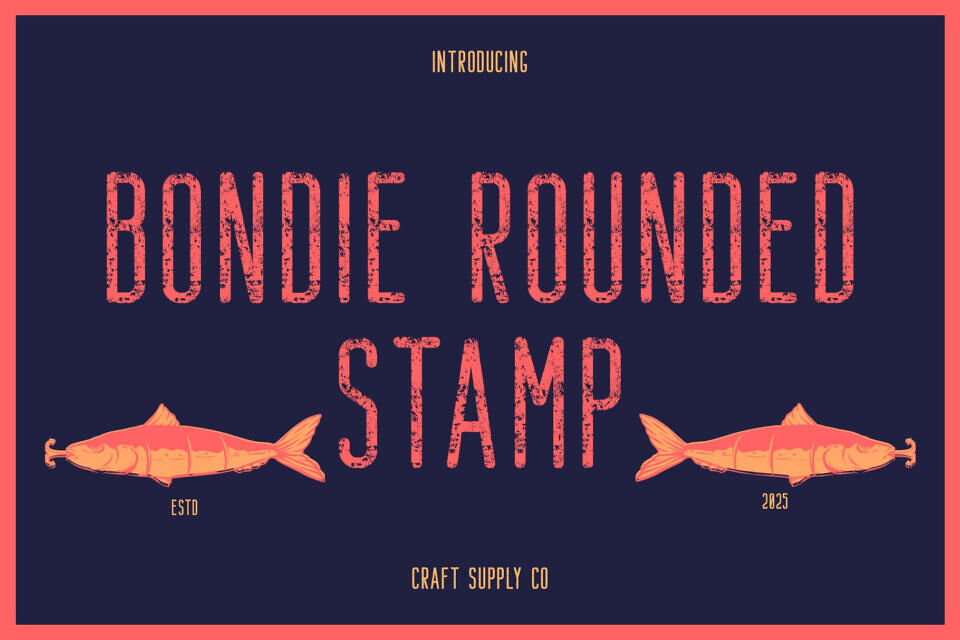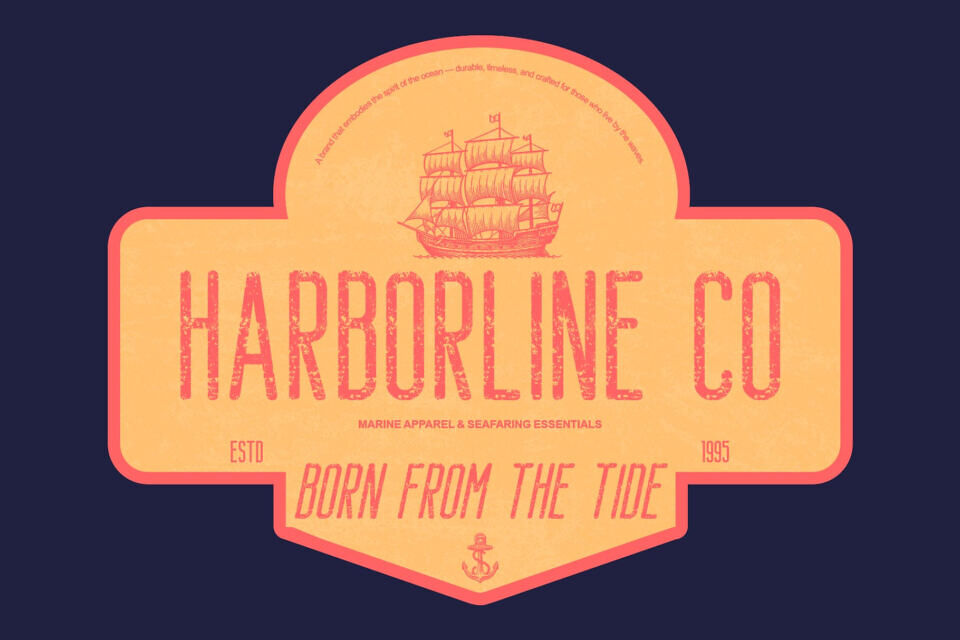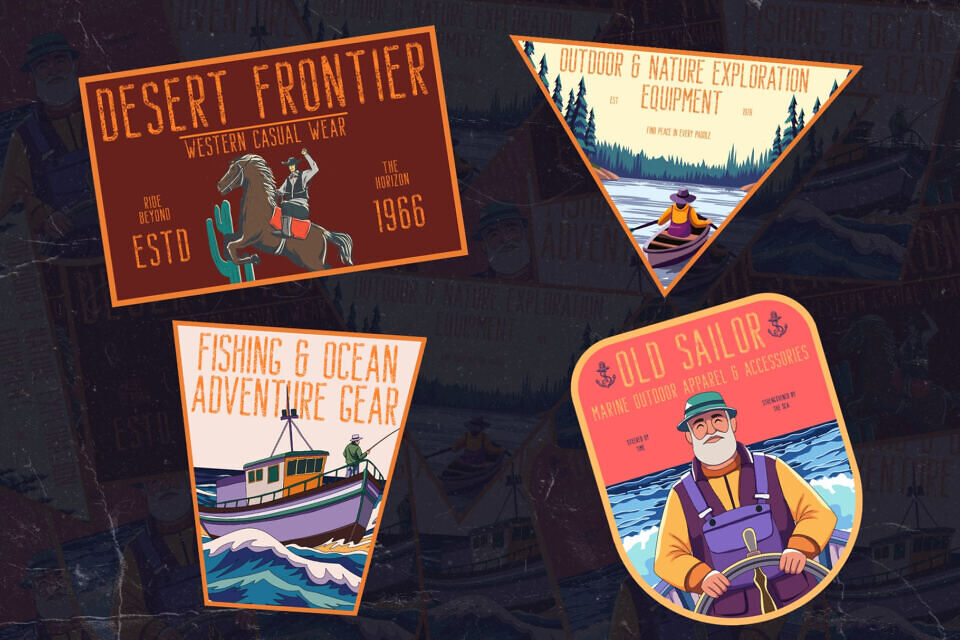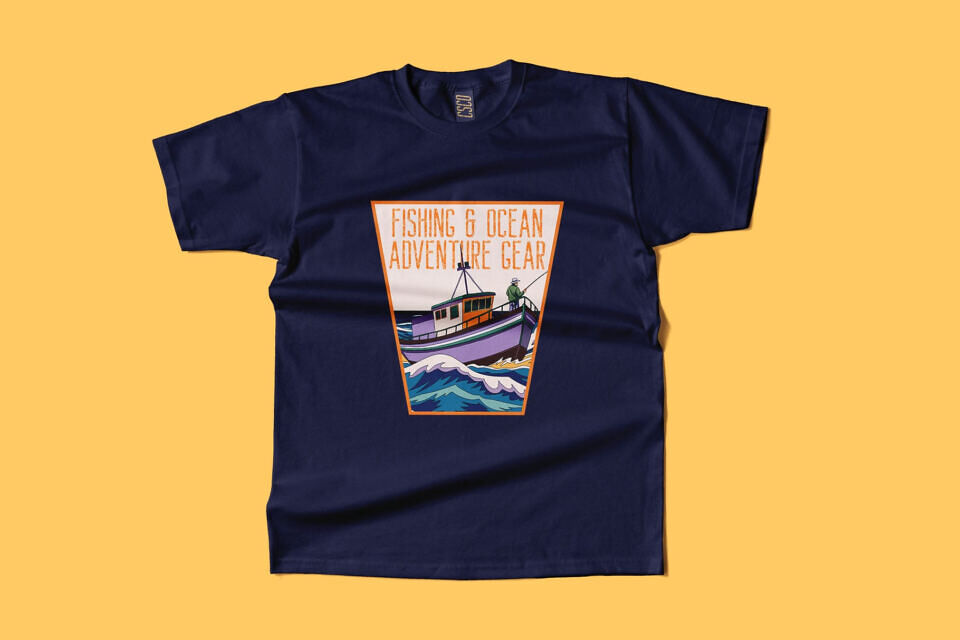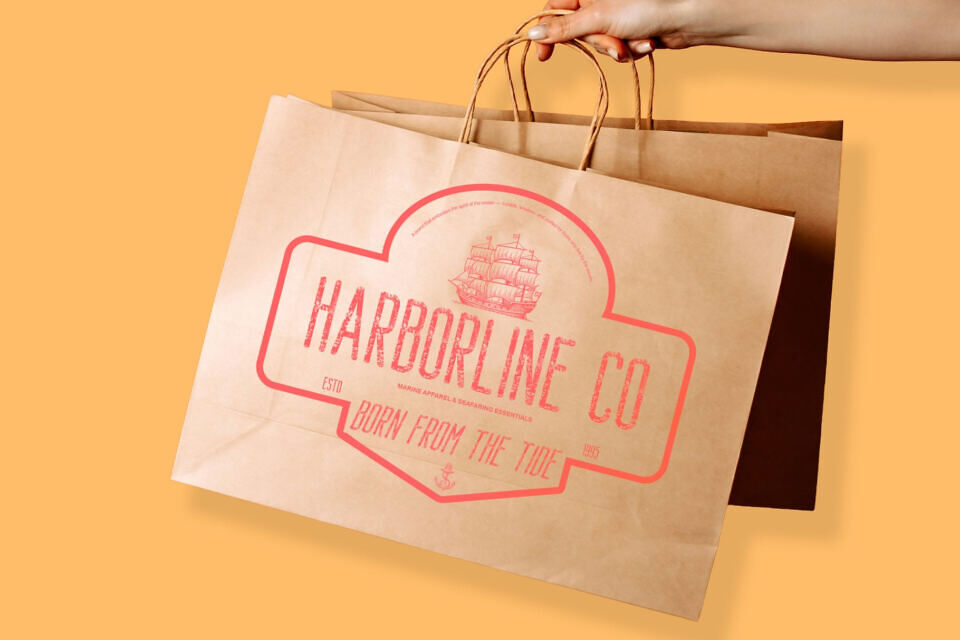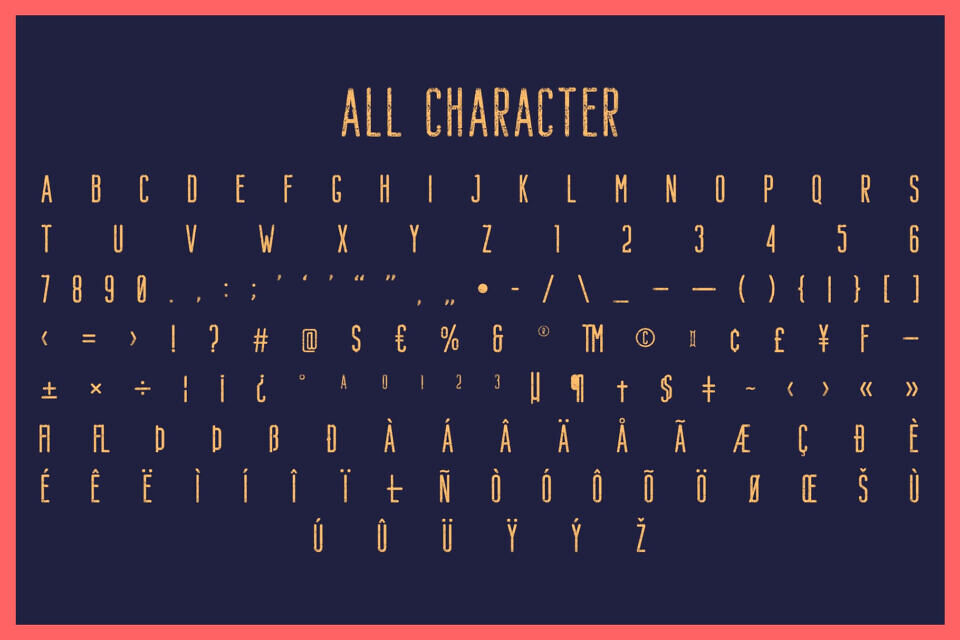
Bondie Rounded Stamp Font
Bondie Rounded Stamp is a condensed sans serif font designed to deliver maximum impact in minimal space. Its compact proportions and bold construction ensure that every letter commands attention, making it ideal for headlines, posters, and branding projects that demand clarity and strength.
The addition of rounded corners gives a softer and more approachable tone, balancing its condensed power with warmth and friendliness. This rounded design detail enhances legibility while adding a subtle charm that works beautifully across both digital and print applications.
What sets this font apart is its stamp texture, which infuses a vintage, handcrafted feel into its clean geometry. The worn, textured edges bring a sense of history and depth, evoking the authenticity of traditional printing and aged signage.